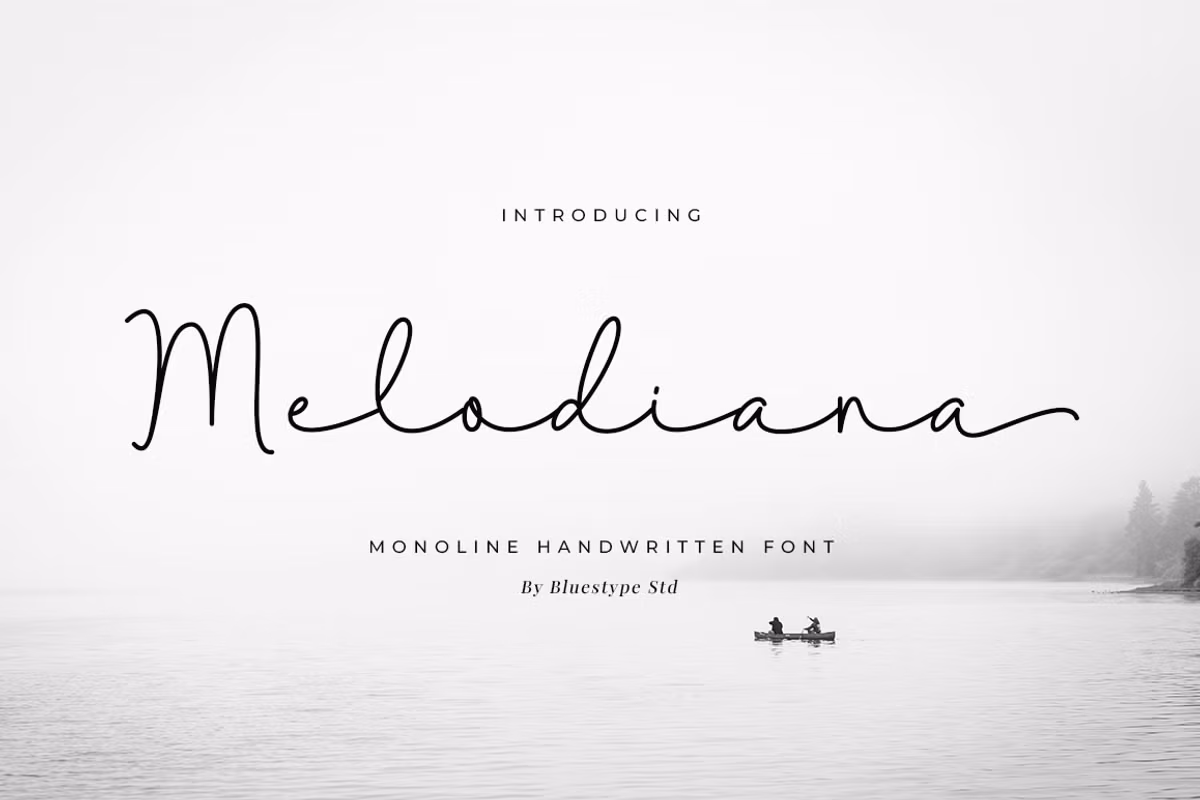
Melodiana Font Free Download
Please note, to use this font for commercial purposes, you must purchase the full version. Melodiana is an elegant and refined script font designed to add a touch of sophistication and charm to your designs. With its flowing, graceful letterforms, this font is perfect for wedding invitations, branding, logos, and any project that requires a stylish, handwritten feel. Whether you're designing for a luxury brand, a special event, or a personal project, Melodiana brings beauty and elegance to your work. Test it out and enjoy free download access for personal use. Experience the graceful, stylish design of Melodiana Font Free Download before purchasing the commercial license. Add an elegant, handwritten touch to your designs with Melodiana.